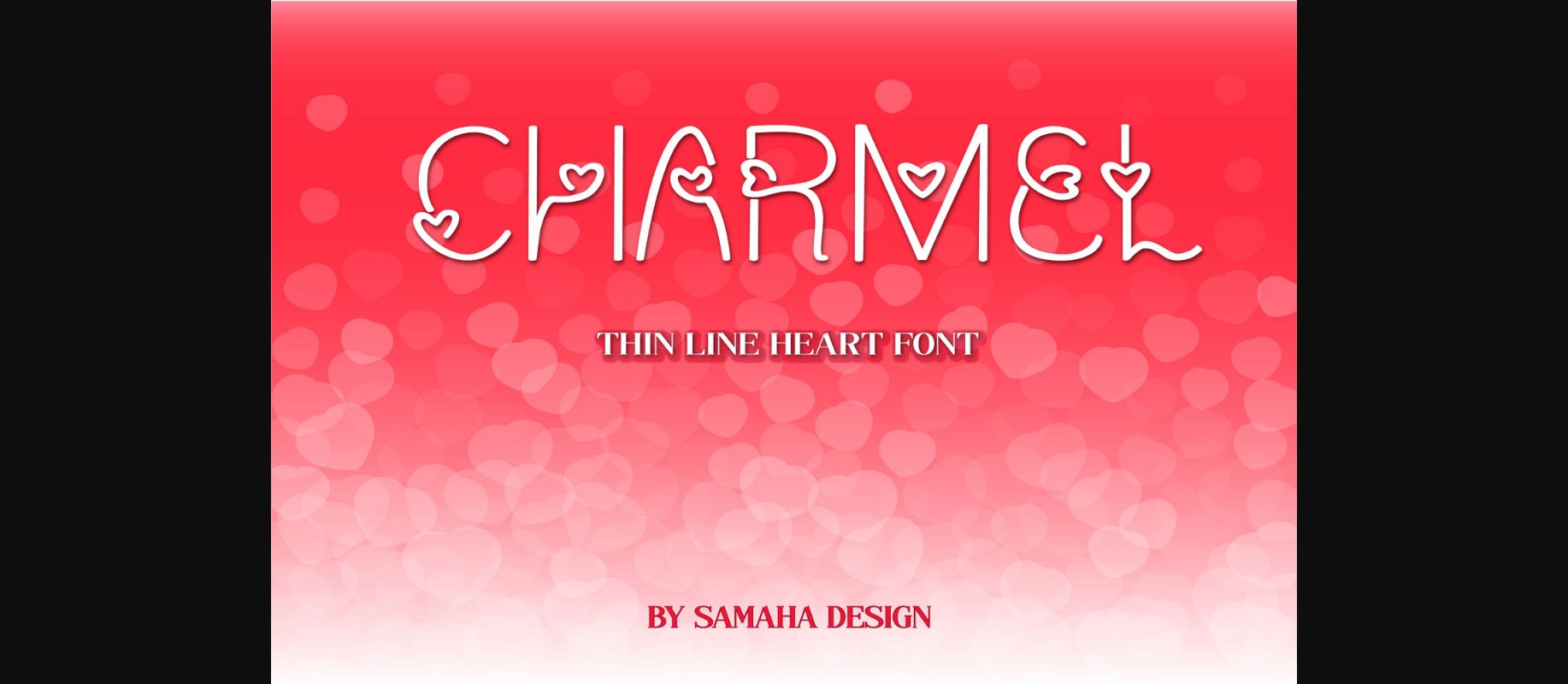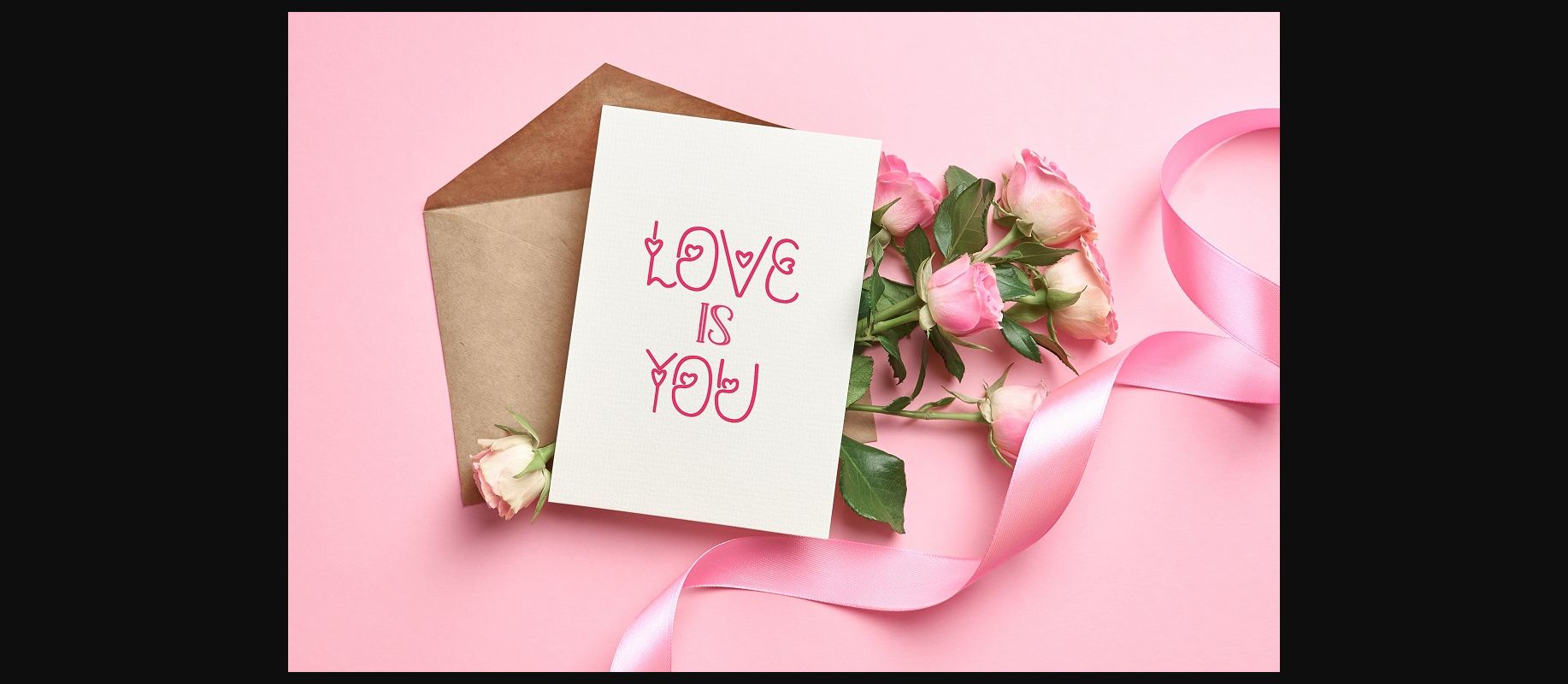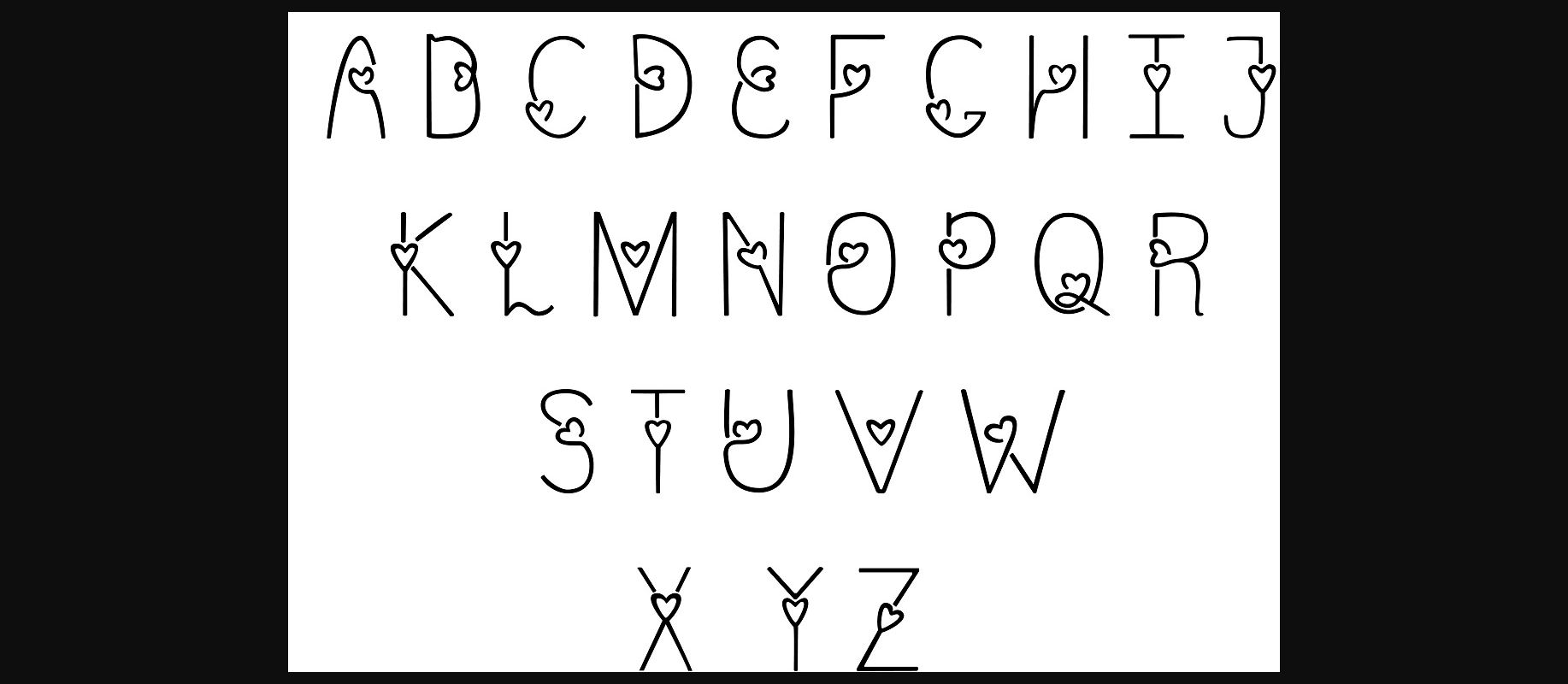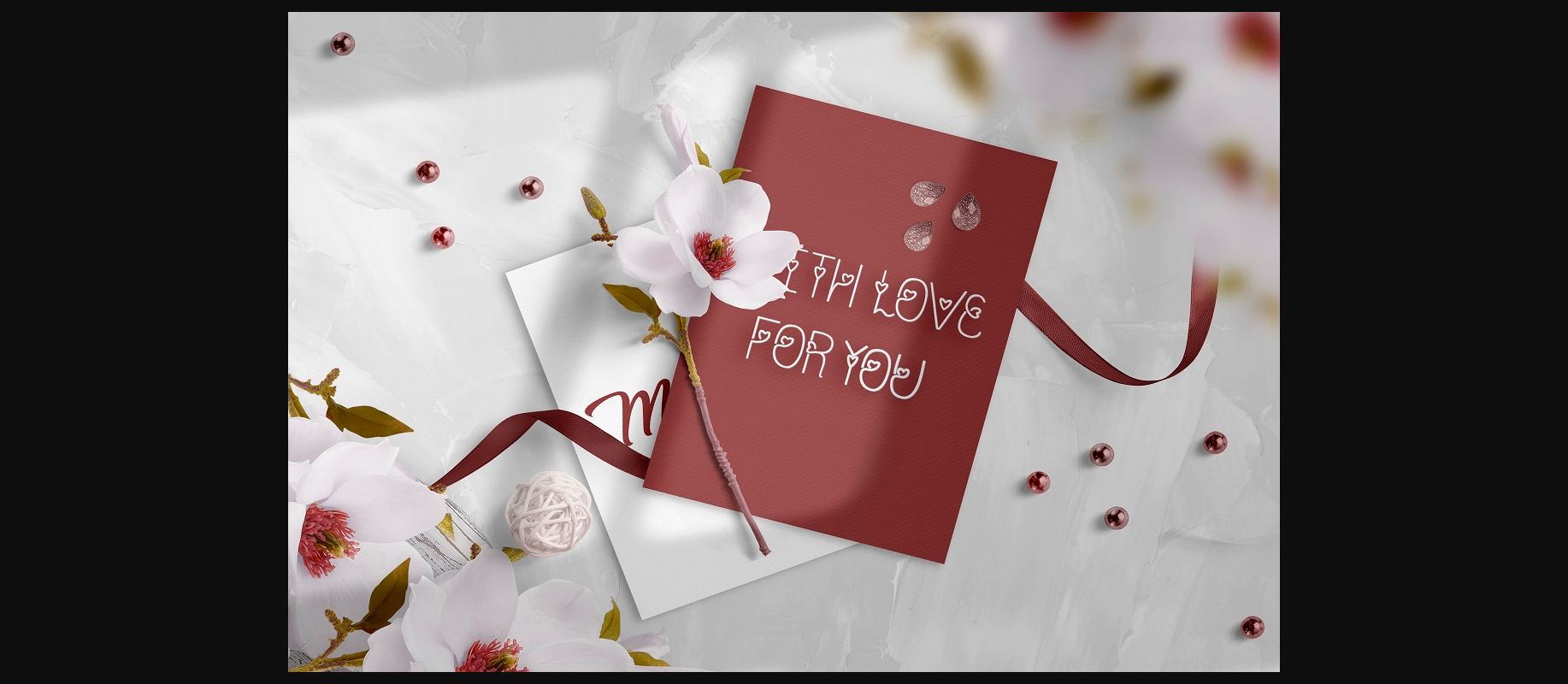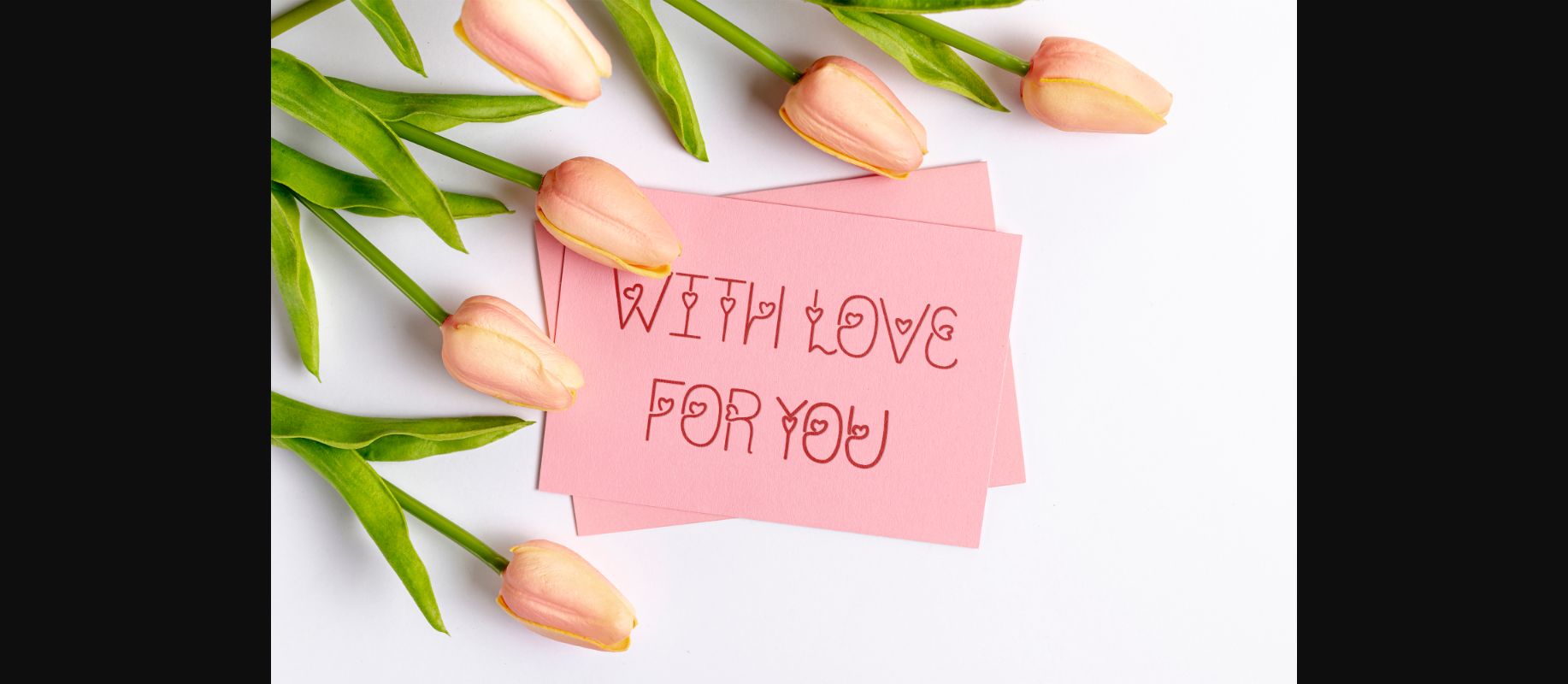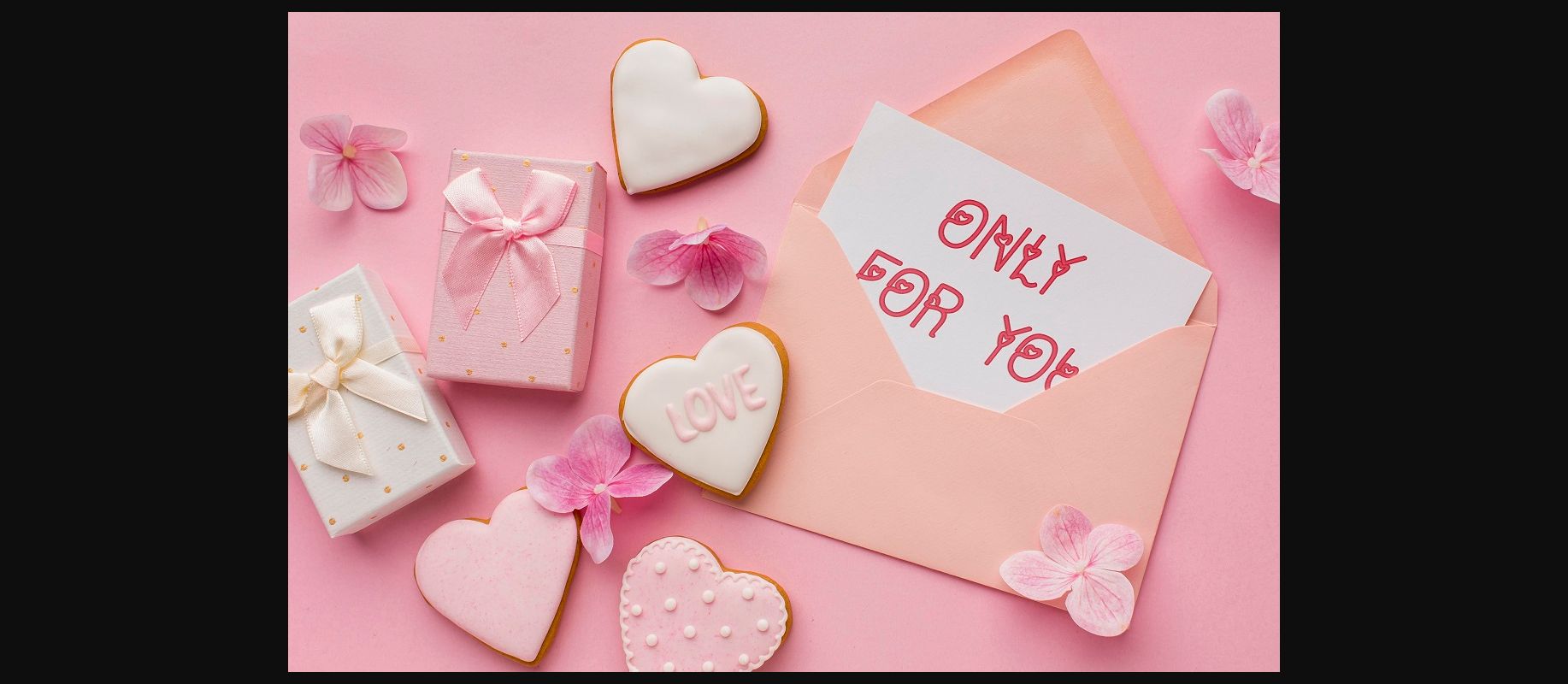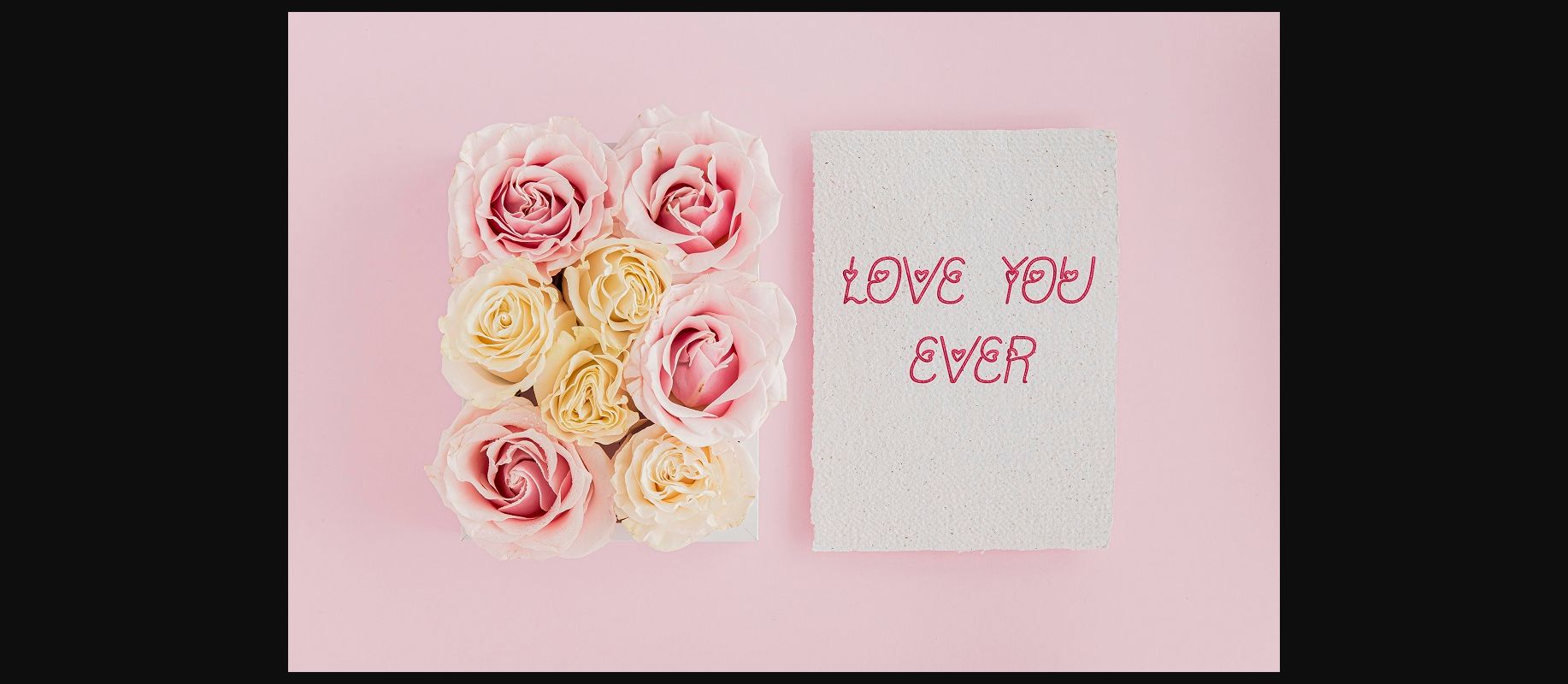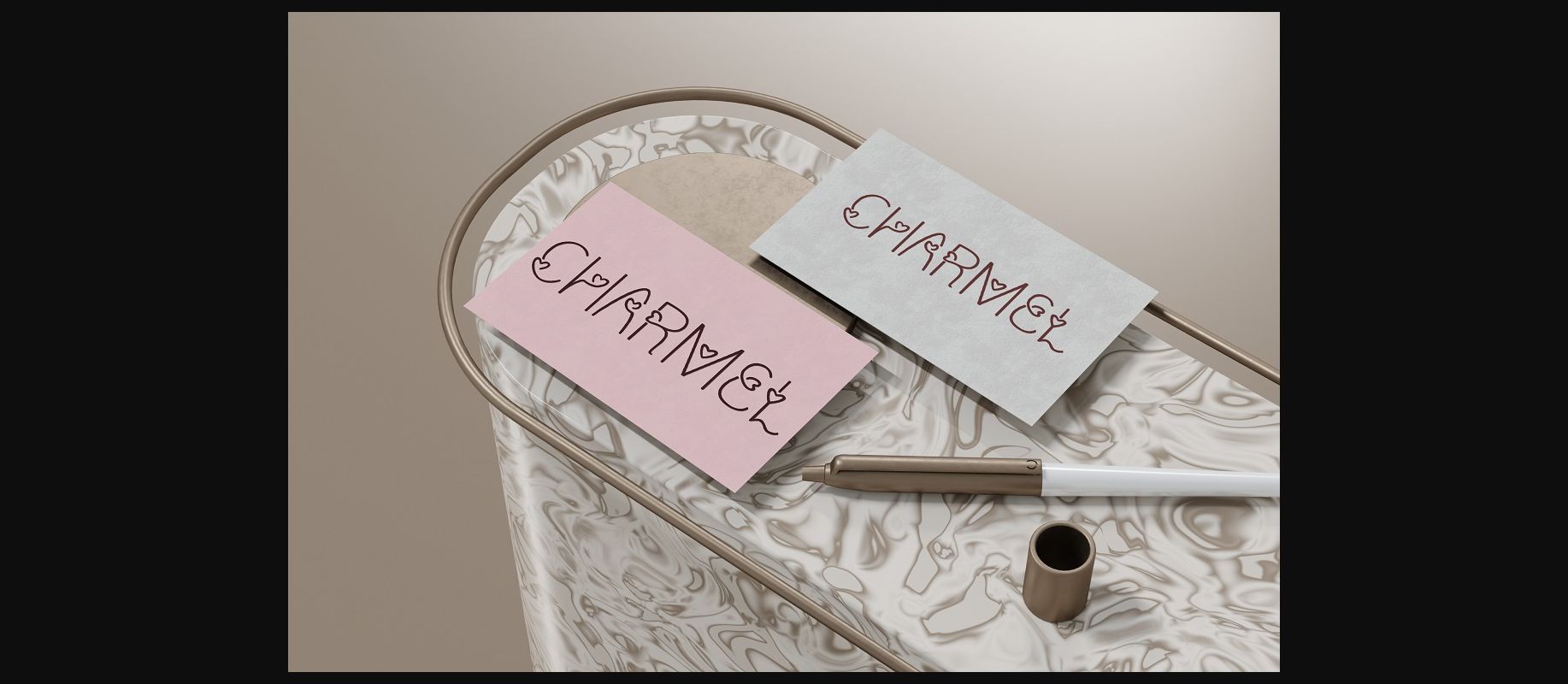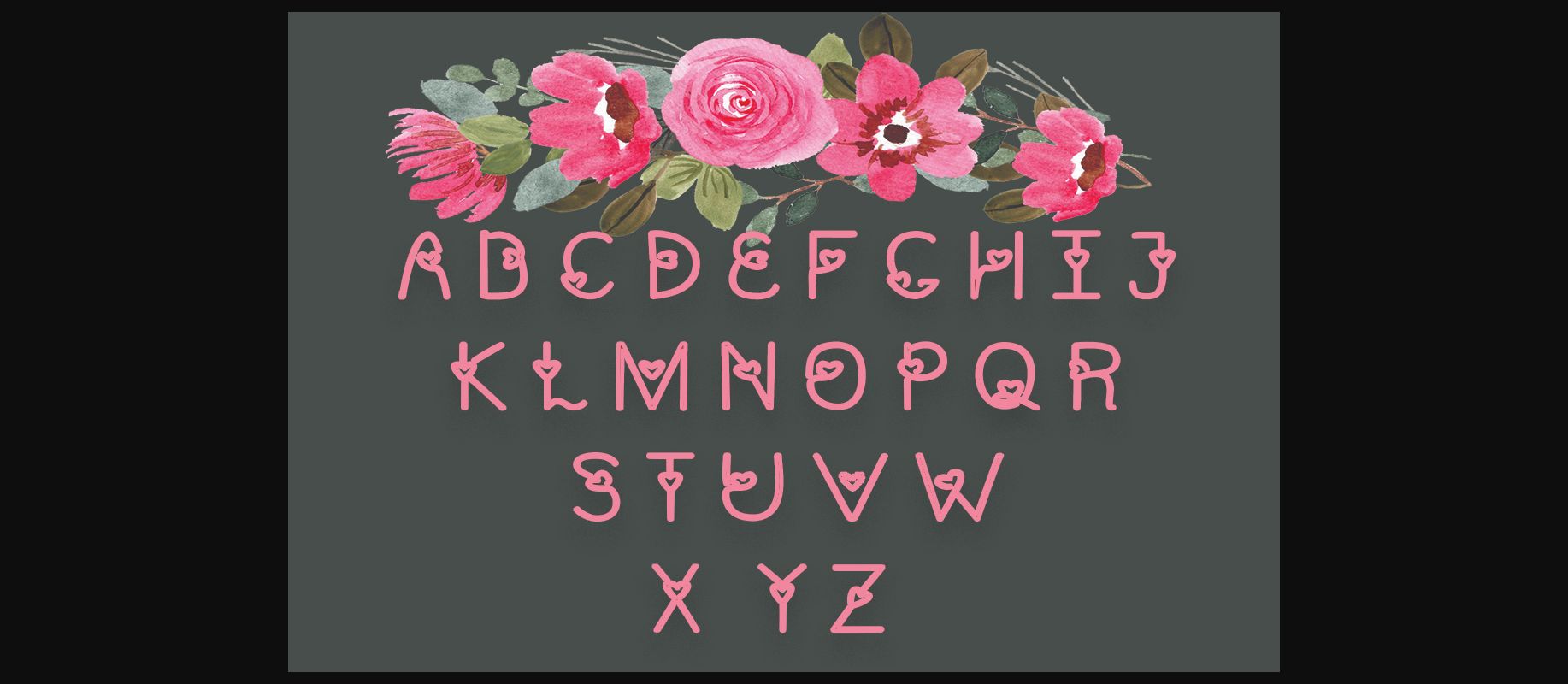
Charmel Font
About Charmel Font
Charmel is a romantic decorative font that inspires love and cuteness. Use this beautiful typography for messages about love, love letters, quotes, posters, name cards, watermarks, and all your other lovely creations!